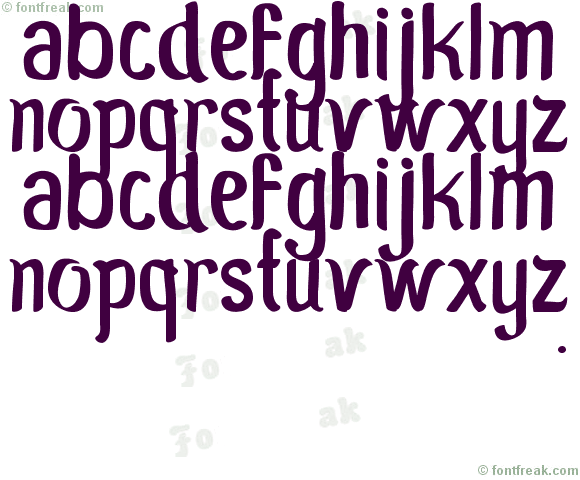
MoroSeneng
MoroSeneng is a unique display font designed by Adien Gunarta, characterized by its playful and artistic flair. This font falls into the decorative category, making it an excellent choice for projects that require a touch of creativity and charm. The visual characteristics of MoroSeneng include a medium stroke weight with subtle contrast, providing a balanced feel that is neither too bold nor too delicate. The letterforms are well-spaced, allowing for clarity and readability while still maintaining a whimsical aesthetic. Decorative elements such as playful curves and distinctive tails add to its charm, making it visually engaging.
This font is particularly well-suited for a variety of specific use cases. It shines in wedding invitations, where its charm can enhance the romantic theme. Additionally, MoroSeneng is a fantastic option for movie posters, adding a unique narrative flair that captures attention. Restaurant menus can benefit from this font as well, offering a warm and inviting feel that complements the dining experience. Content creators and bloggers will find it ideal for headers and social media graphics, giving their work a distinctive edge.
Targeted primarily at graphic designers, small business owners, and content creators, MoroSeneng appeals to those looking to infuse their projects with a playful yet professional touch. It stands out in a crowded field of fonts due to its unique character and versatility. Whether you're designing for print or digital mediums, this font can elevate your work and engage your audience. With its availability as a MoroSeneng font free download, it's an accessible choice for anyone looking to add a creative spark to their designs.